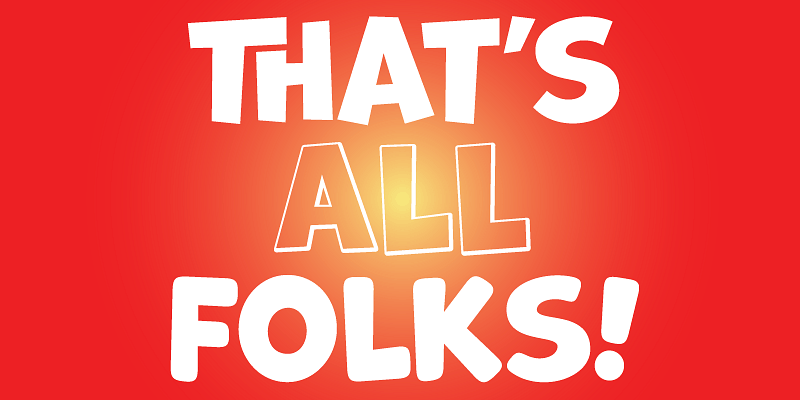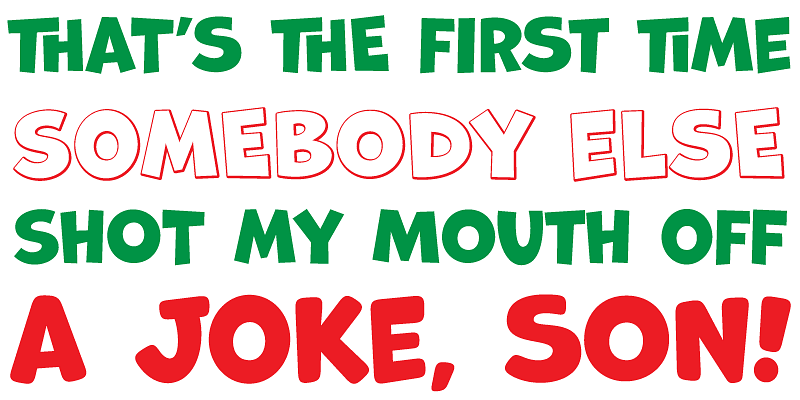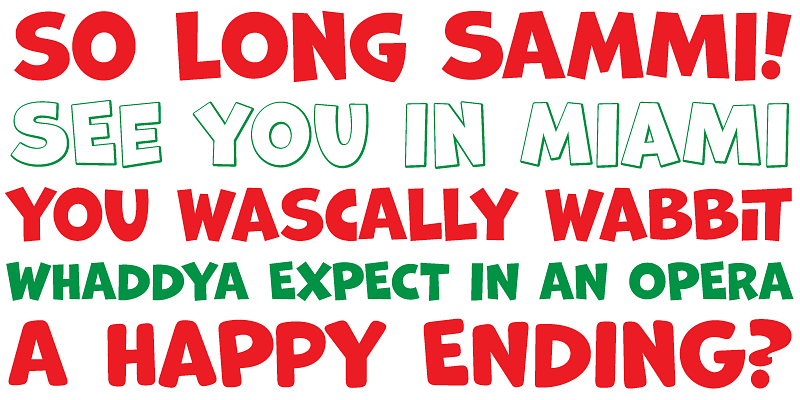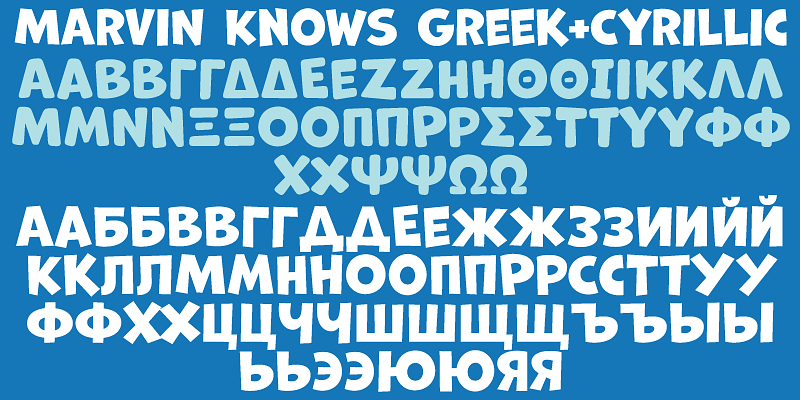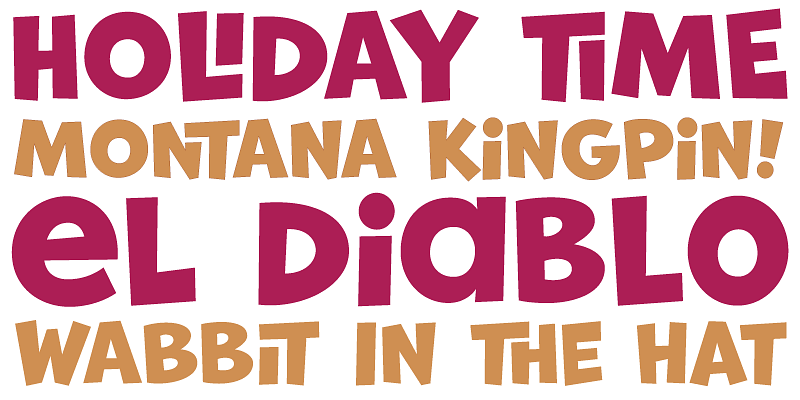
Marvin is a great cartoon font that can help you build your very own Illudium Q-36 Space Modulator, so you can trigger that earth-shattering kaboom. Then you’re on your way to claim this planet in the name of Mars. Isn’t it lovely, mm?